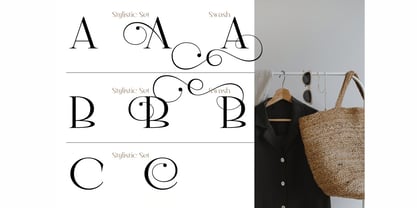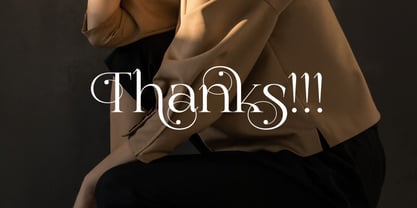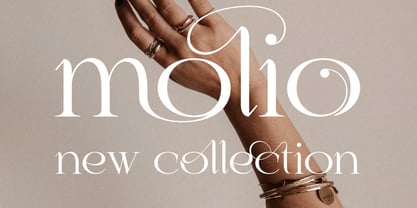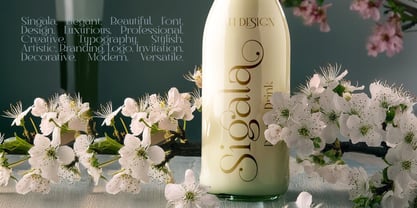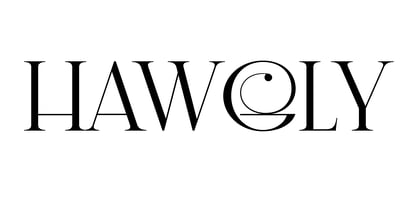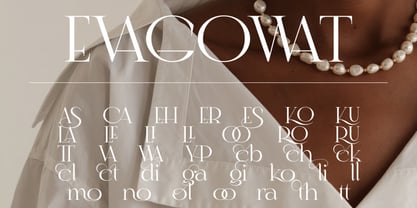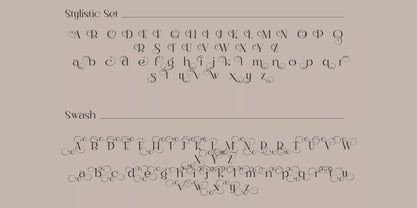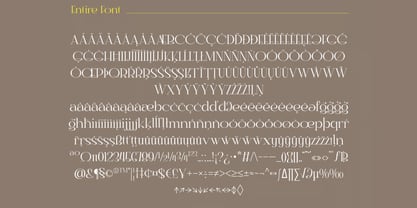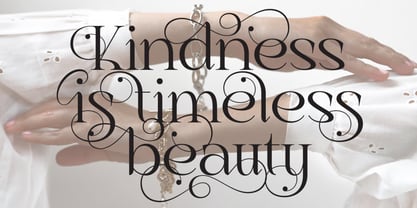
Hawgly
The Hawgly Font Family was designed by Hasnat Khan and published by Hasnat Studio. Hawgly contains 1 styles. More about this family
Hawgly is an elegant and beautiful serif font designed to bring sophistication, charm, and timeless luxury to every creative project. Crafted with meticulous attention to detail, this stunning typeface features graceful letterforms, stylish swashes, and refined ligatures that create a captivating visual experience. Every character is designed to convey elegance, making Hawgly the perfect font for designers seeking a premium and professional aesthetic.
Blending classic beauty with modern refinement, Hawgly is ideal for creating memorable branding, sophisticated logos, wedding stationery, editorial layouts, luxury packaging, fashion labels, and upscale marketing materials. Its versatility allows it to shine across both print and digital applications, delivering a polished and distinctive appearance wherever it is used.
Whether you're designing for a luxury brand, a romantic wedding, a fashion magazine, or an elegant product line, Hawgly adds a touch of grace and exclusivity that instantly elevates your work.
✿ Key Features:
• Elegant Serif Design: Beautifully crafted letterforms with a luxurious and sophisticated appearance.
• Stylish Swashes: Decorative swashes that add elegance and personality to your typography.
• Creative Ligatures: Seamlessly connected characters for premium typographic compositions.
• Stylistic Set Features: Alternate styles for customized and unique designs.
• Uppercase & Lowercase Characters: Complete alphabet for versatile creative use.
• Numbers & Extensive Punctuation: Professional character set for polished layouts.
• Multilingual Support: Supports international languages and accented characters.
• PUA Encoded Characters: Easily access special glyphs without additional design software.
✿ Perfect For:
• Luxury Branding & Logo Design: Create sophisticated and memorable brand identities.
• Wedding Invitations & Event Stationery: Perfect for elegant celebrations and formal occasions.
• Fashion & Beauty Branding: Ideal for premium cosmetics, boutiques, and lifestyle brands.
• Editorial & Magazine Design: Stunning for headlines, covers, and feature layouts.
• Packaging & Product Labels: Add a luxurious touch to product presentations.
• Social Media & Marketing: Design eye-catching graphics with timeless elegance.
• Personal Branding & Signature Logos: Create a refined and exclusive visual identity.
Transform your designs with Hawgly—an elegant and beautiful serif font featuring swashes, ligatures, stylistic alternates, and multilingual support. Perfect for luxury branding, wedding invitations, editorial design, fashion labels, packaging, logos, and premium creative projects.